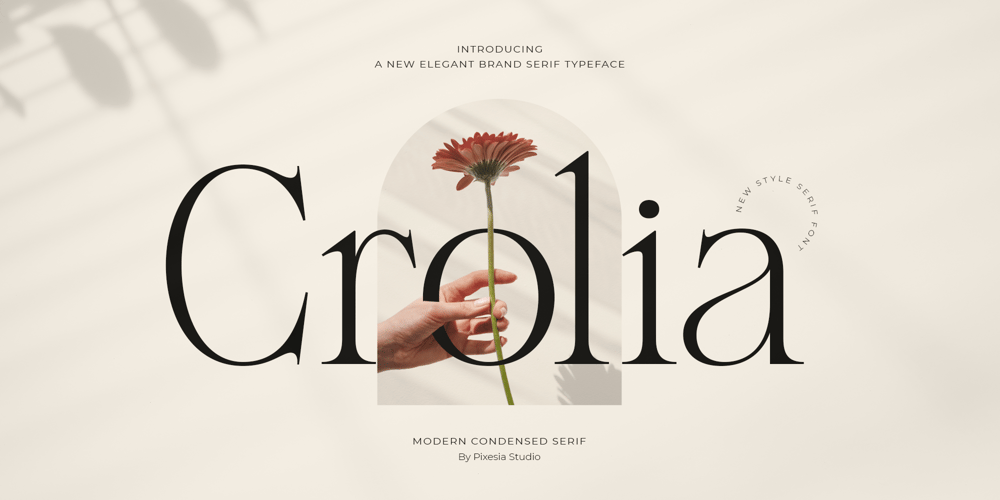
Crolia Font Family was designed by Abul Almaududi and published by Pixesia Studio. Crolia contains 1 styles and family package options. Introducing Crolia – Modern Condensed Serif FontCrolia is a modern and stylish condensed serif font with the classic twist. With tThe sleek and stylish design, this font will add a touch of sophistication to your work, making it ideal for branding, packaging, and other design applications.Crolia is perfectly suited for branding, logotypes, wedding invitations, romantic quotes, labels, social media posts, advertisements, product packaging, product designs, label, photography, watermark, invitation, stationery and any projects seeking minimalist, luxury and classic aesthetic feel.FEATURES- Stylistic Alternates- Ligatures- Uppercase and Lowercase letters- Numbering and Punctuations- Works on PC or Mac- Simple Installation- PUA Encoded Characters – Easily accessible without additional design software.- Support Adobe Illustrator, Adobe Photoshop, Adobe InDesign, also works on Microsoft Word- Multilingual Support for 89 languages including Afrikaans, Albanian, Basque, Catalan, Danish, Dutch, English, Estonian, Faroese, Filipino, Finnish, French, Galician, German, Icelandic, Indonesian, Irish, Italian, Malay, Norwegian Bokmål, Portuguese, Spanish, Swahili, Swedish, ZuluHope you Like it.Thanks.